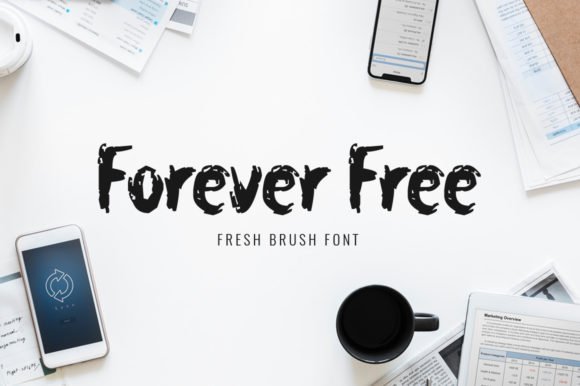
The Perfect Twist for Your Design Projects
Have you ever been working on a design project, and you just can’t seem to find the right font to give it that extra oomph? You know, that spark that sets your design apart from the rest? Well, we’ve got just the thing for you – a font that’s as bold as it is charming, and it’s called the Forever Free Font.
This display font is not just any ordinary font, it’s a game-changer. With its unique twist, it adds a rough charm to any design project, making it perfect for designers who want to add some edge to their work. And the best part? It’s completely free to use, making it a valuable addition to any designer’s toolkit.
Whether you’re a seasoned designer or just starting out, the Forever Free Font is definitely worth checking out. So why settle for a boring font when you can add a little bit of Forever Free magic to your designs?
Forever Free Font Key Features
- Unique Characteristics: Forever Free Font features a unique, hand-drawn design with a mix of modern and vintage elements, making it perfect for creative and artistic projects.
Forever Free Font Review
Overall, I was pleasantly surprised by the “Forever Free Font” – it’s a free font that’s worth checking out, especially for those on a tight budget. ✨
- Unique style: The font has a distinct, quirky feel to it that sets it apart from more generic sans-serif fonts.
- Legibility: Despite its bold style, the font is surprisingly easy to read, even at smaller sizes.
- Limited character set: The font doesn’t support a wide range of special characters, which may be a problem for designers who need to include accents or other non-standard characters in their work.
- Not suitable for fine typography: The font’s bold style makes it less suitable for use in fine typography or small text sizes.
- Not a substitute for commercial fonts: While the font is free, it’s not a replacement for a high-quality commercial font – the quality and consistency of the font may not be as polished.
Overall, I’d say the “Forever Free Font” is a solid choice for designers who need a free font with a unique style and good legibility. While it has some limitations, it’s a great option for those on a tight budget or who need a font for a specific project.
Tips for Getting the Most Out of Forever Free Font
Use Forever Free Font for:
- Quotes and blockquotes
- Displaying emotions and personality
Remember to pair Forever Free Font with a complementary font for body text to maintain readability.
Alternatives to “Forever Free Font” for Designers
Open Sans is a modern sans-serif font designed by Steve Matteson. It is a popular choice for digital products and is highly legible in various screen resolutions. Use Open Sans for user interfaces, digital signage, and web applications.
Compared to Forever Free Font, Open Sans has a more geometric and clean design, making it suitable for modern digital products. While Forever Free Font has a more classic and elegant feel, Open Sans is more versatile and adaptable to different screen sizes and resolutions.
Lato is a sans-serif font designed by Łukasz Dziedzic. It has a clean and modern design with a humanistic touch. Use Lato for branding, packaging, and editorial content.